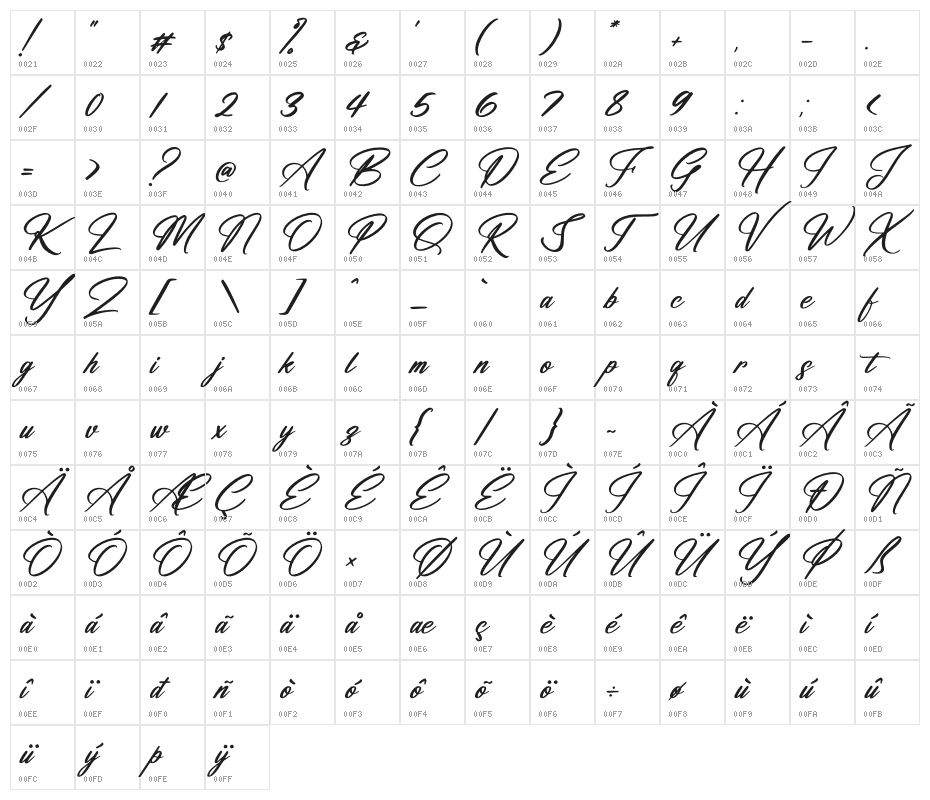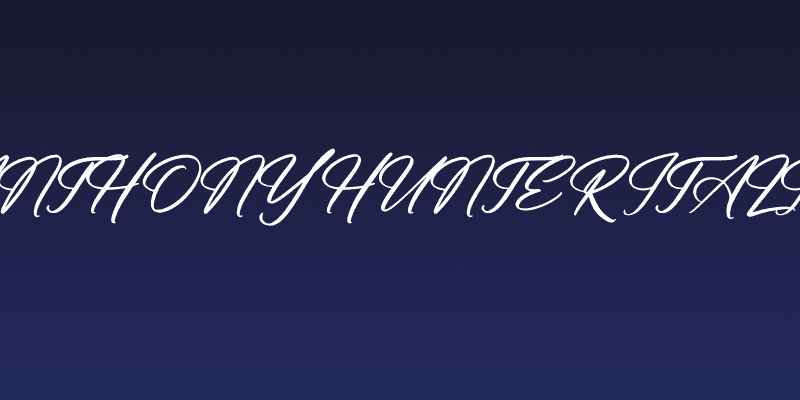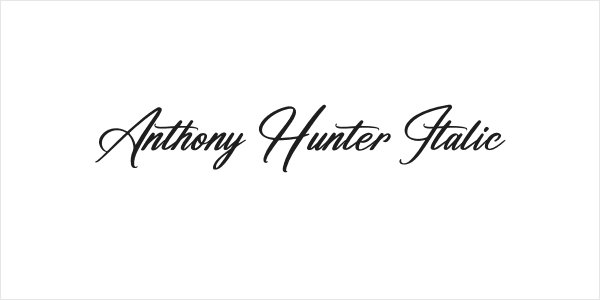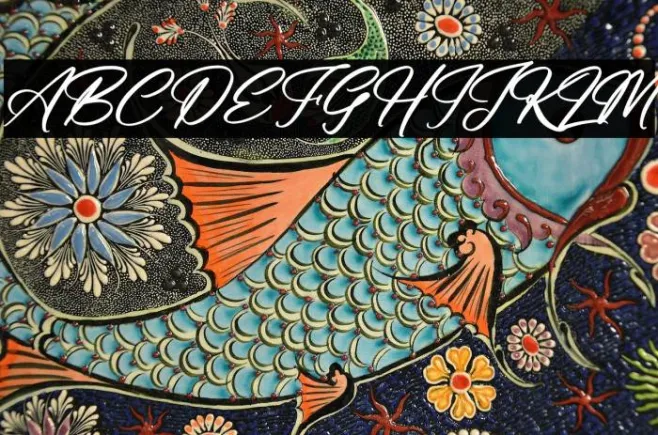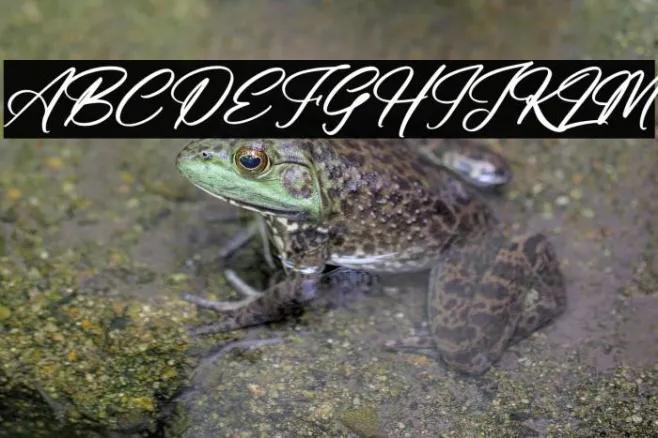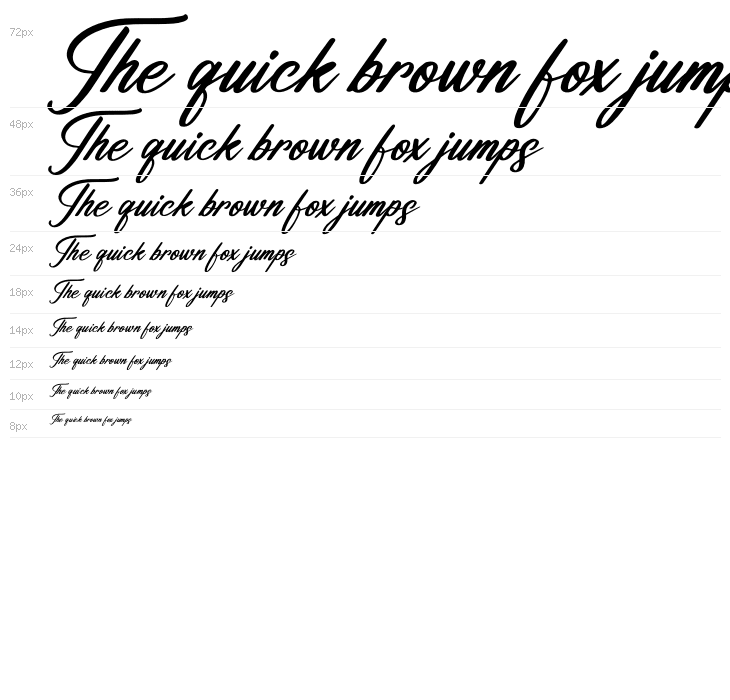
Anthony Hunter Italic Font
Anthony Hunter Italic Description
This font exudes a dynamic and elegant style, characterized by its flowing, cursive script that mimics the fluidity of natural handwriting. The uppercase letters are slightly elongated with smooth curves, while the lowercase letters maintain a consistent slant, enhancing the italicized appearance. The numerals are bold and clear, ensuring readability. Special characters are crafted with the same attention to detail, seamlessly integrating with the overall design. This font is perfect for projects that require a personal touch, combining sophistication with a modern flair.
| Proposed Projects | Ideal for wedding invitations, branding, logo design, and elegant stationery. |